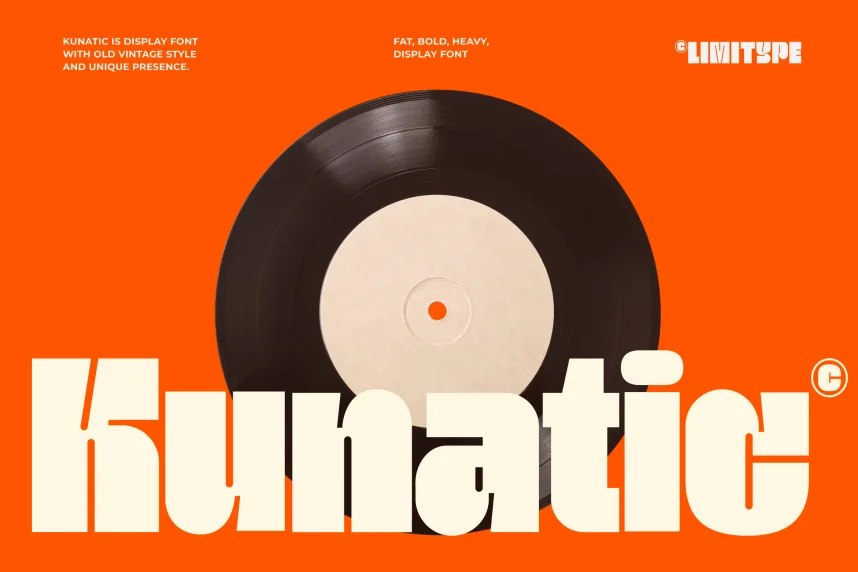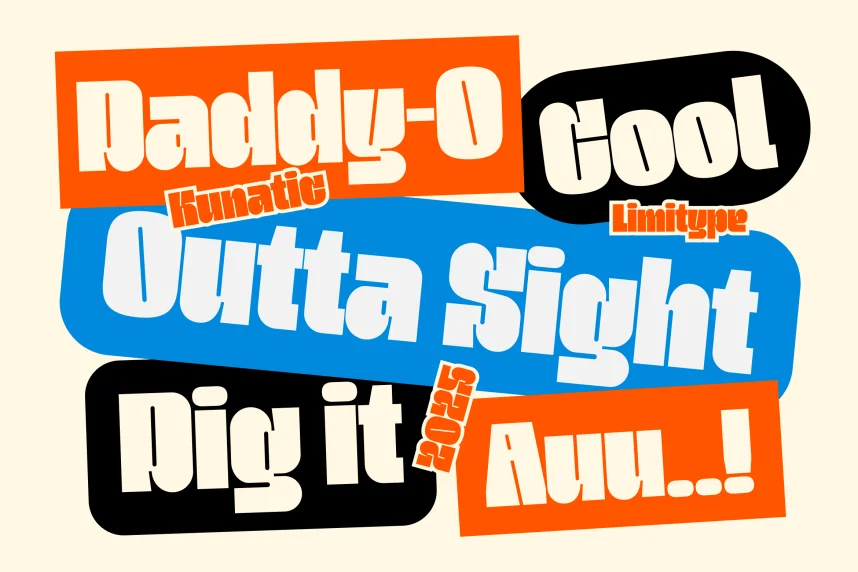
Kunatic Font is a retro-inspired bold display typeface designed for strong visual identity. Designers often need vintage-style fonts that remain readable in modern layouts. Kunatic achieves this by combining bold strokes with controlled letter spacing.
This font belongs to the retro display category. Its letterforms feature thick strokes, rounded corners, and consistent character width. The font maintains clarity at large sizes, making it suitable for headlines and branding elements.
Kunatic works well for logos, posters, packaging, editorial headlines, and social media graphics. It is best used for short text rather than long paragraphs. Designers often pair it with a clean sans-serif font for supporting content.